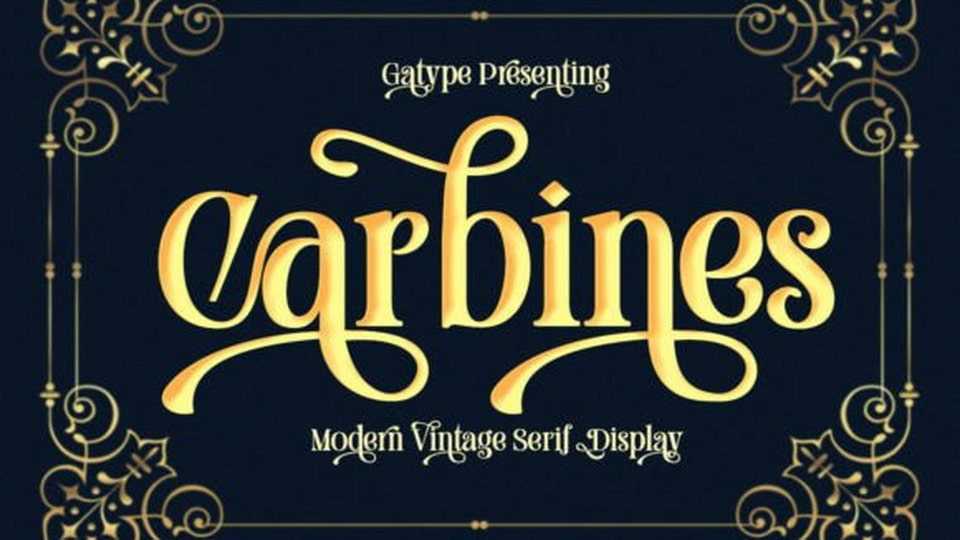
Download Carbines font, a retro serif typeface with extreme cuts, sharp angles, and interactive straps. Affected characters are spread across three capital-only subfamilies, with distinct styles, and distinct personalities.